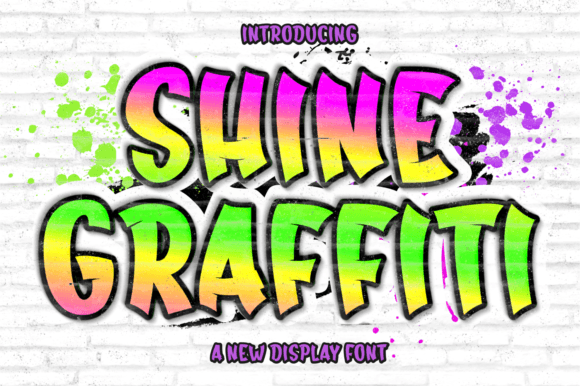
Introducing Shine Graffiti Font, the ultimate choice for those seeking a font that truly stands out in the crowd. Created by the talented Rian from 7NTypes, this bold and playful display font is designed to add an urban edge to your designs and captivate the eyes of your audience.
With its dynamic strokes and vibrant colors, Shine Graffiti Font perfectly captures the essence of street art, infusing your projects with a sense of rebellious creativity. Whether you're working on a flyer, poster, or even a website, this font will make your designs come alive and demand attention.
Imagine your message popping off the page, drawing people in with its captivating style. Shine Graffiti Font gives you the power to express yourself in a way that is unique and eye-catching. It's more than just a font; it's a statement, a representation of your boldness and individuality.
Stand out from the crowd and let your creativity run wild with Shine Graffiti Font. Whether you're a designer, artist, or simply someone looking to make a statement, this font is the perfect tool to elevate your projects to new heights. Its versatility allows it to adapt to any project, making it suitable for everything from street signs to album covers.
Unlock the potential of your designs with Shine Graffiti Font. Embrace the energy and excitement of street art, and watch as your creations come to life with every stroke. Don't settle for ordinary when you can make a lasting impression with this extraordinary font.
Experience the urban edge, the vibrant colors, and the dynamic strokes that make Shine Graffiti Font the font of choice for street signs and beyond. Download now and let your designs shine like never before.